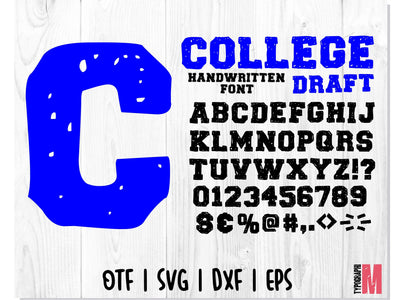
College Draft Font | Handwritten font
College Draft is a modern handwritten font, carefully handcrafted to become a true favorite. Its casual charm makes it appear wonderfully down-to-earth, readable and, ultimately, incredibly versatile. College Draft will look outstanding in any context, whether it’s being used on busy backgrounds or as a standalone headline!